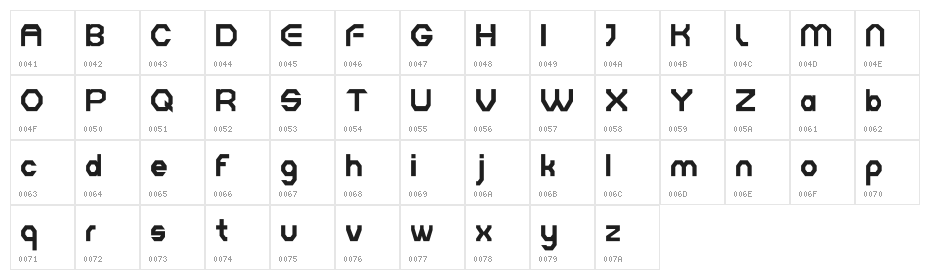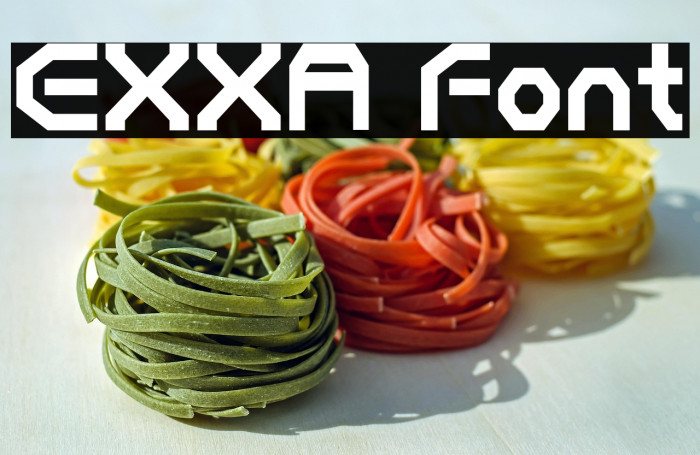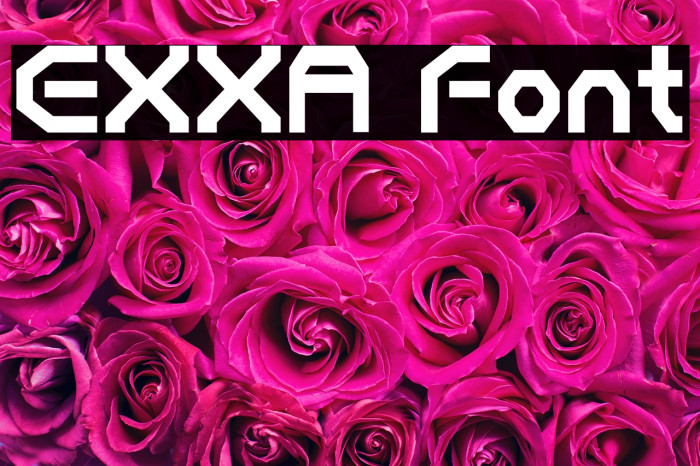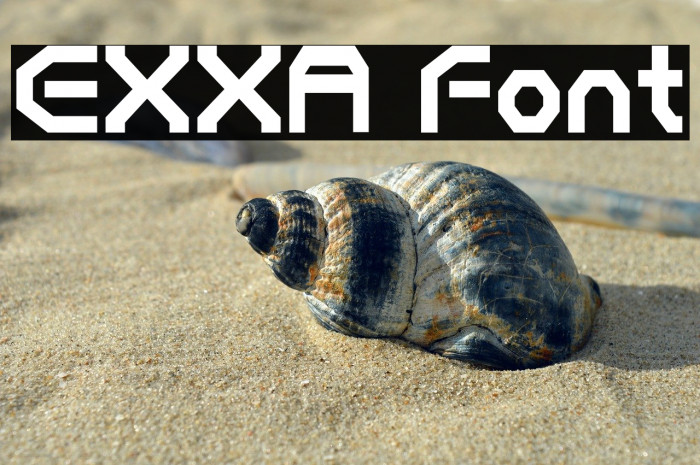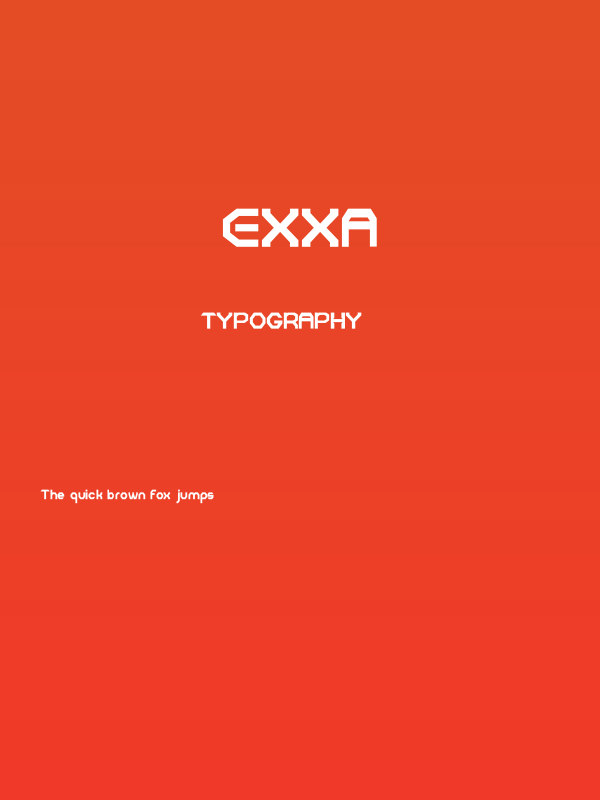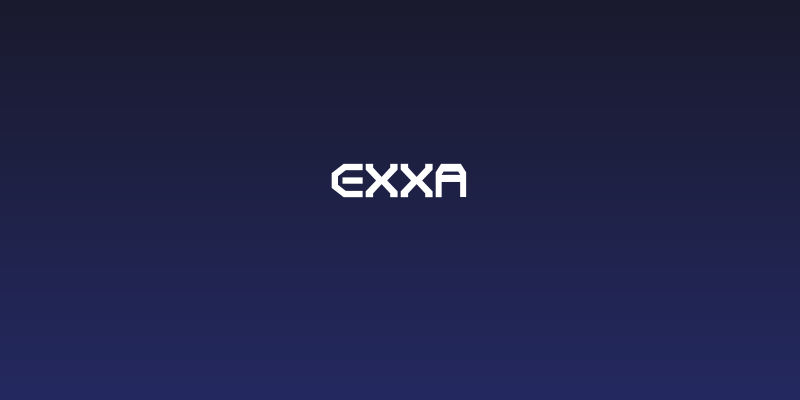
EXXA Font
EXXA Description
This font features a bold, geometric design with angular edges and a futuristic aesthetic. The characters are constructed with straight lines and sharp angles, giving them a distinctive, modern look. The uppercase and lowercase letters maintain a consistent style, with uniform stroke widths that create a cohesive appearance. The numbers and special characters follow the same design principles, ensuring visual harmony across all glyphs. This font's unique structure makes it stand out, making it suitable for projects that require a strong, impactful typeface.
| Overall Style | Futuristic |
| Proposed Projects | Ideal for sci-fi themed designs, video game interfaces, technology branding, and modern posters. |